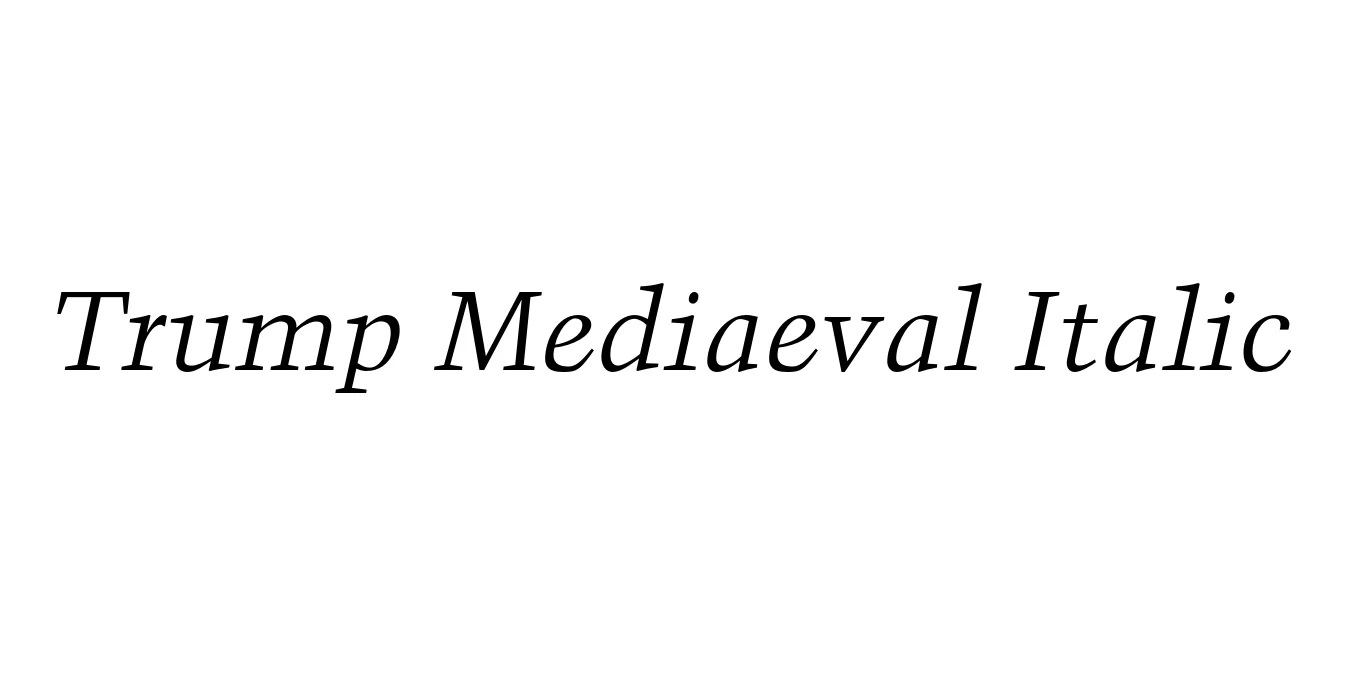
Trump Mediaeval Italic
Designed by Georg Trump
Trump Mediaeval Italic was designed by the prolific German graphic designer Georg Trump and released by the C.E. Weber foundry in 1954. Distinct from other Venetian or Old Style typefaces, it features sharp, wedge-like serifs and a unique angularity that gives it a robust, contemporary feel while maintaining classical proportions. The italic weight is particularly celebrated for its rhythmic, calligraphic flow which provides a sophisticated contrast to its more structural roman counterpart.
Throughout the mid-20th century, this typeface became a primary choice for fine book typography and high-end editorial design due to its exceptional legibility and distinctive aesthetic personality. It effectively bridges the gap between traditional humanist influences and the industrial precision of modern typefounding. Today, it remains a favorite among professional typographers who require a serif font that offers both a strong presence and refined readability across diverse print environments.
Trump Mediaeval Italic Best Uses
Perfect for literary journals, magazines, and long-form book text.
Adds a touch of class and tradition to letterheads and invitations.
Suitable for professional services and heritage brands seeking authority.